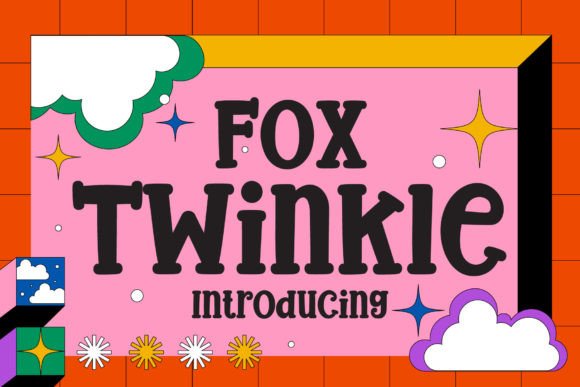
In a world teeming with ordinary fonts, let Fox Twinkle Font ignite your creativity and captivate your audience with its vibrant and playful aura. This remarkable slab serif font, crafted by Fox7, is an ode to summer's exuberance, exuding a spirited energy that dances across your designs. Dive into a world of imagination and boundless expression as you unleash the potential of Fox Twinkle Font.
Immerse yourself in a symphony of visual delight as Fox Twinkle Font transforms your designs into captivating masterpieces. Its sturdy serifs and dynamic curves create an enchanting harmony, inviting your audience to embark on a journey of discovery. Unleash your creativity and let your designs flourish with Fox Twinkle Font as your trusted companion.
With Fox Twinkle Font, ordinary becomes extraordinary. Its versatility knows no bounds, making it the perfect choice for a multitude of projects. Craft attention-grabbing headlines that command attention and leave a lasting impression. Design t-shirts that exude personality and style, ensuring that your message resonates with your audience. Create banners that radiate energy and vibrancy, captivating the eyes of all who behold them. Elevate product labels with a touch of sophistication, alluring customers with a visual feast that entices them to make a purchase.
Fox Twinkle Font is more than just a font; it's an experience that ignites your imagination and fuels your creative spirit. Its summery charm infuses your designs with a sense of joy and playfulness, transporting your audience to a realm of pure delight. Whether you're a seasoned designer or just starting your creative journey, Fox Twinkle Font is the perfect companion, guiding you towards captivating designs that leave an enduring impact.
Don't let your designs fade into the background. Embrace the magic of Fox Twinkle Font and watch as your creativity takes flight. Its vibrant personality and expressive nature will transform your designs into captivating works of art, leaving your audience mesmerized. Unleash the power of Fox Twinkle Font today and embark on a journey of visual exploration that will redefine your creative horizons.